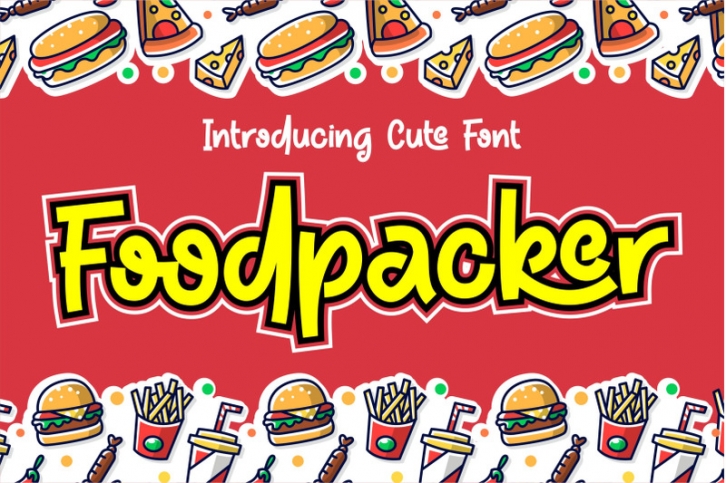
Introducing Foodpacker - Cute Font. This font perfectly made to be in poster funny, and the other various formal forms such as invitations, labels, logos, magazines, books, packaging, fashion, make up, stationery, novels, labels or any type of advertising purpose.